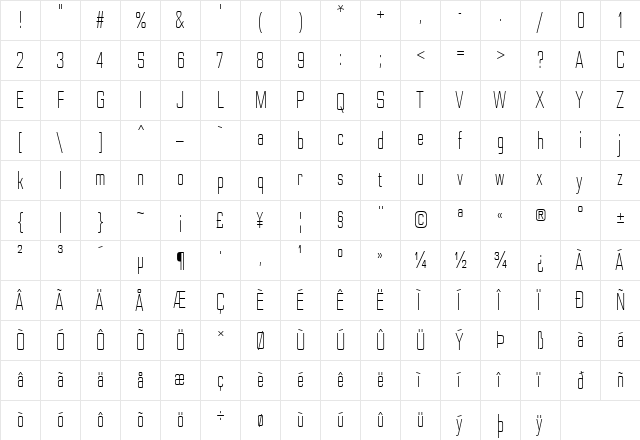
Nesobrite Condensed Light
Design Context for Nesobrite Typeface
Nesobrite is a composed and adaptable typeface that performs quietly and consistently across a wide range of design contexts. The delicate stroke weight brings airiness and refinement to layouts. The condensed width makes it efficient for tight spaces without sacrificing legibility.